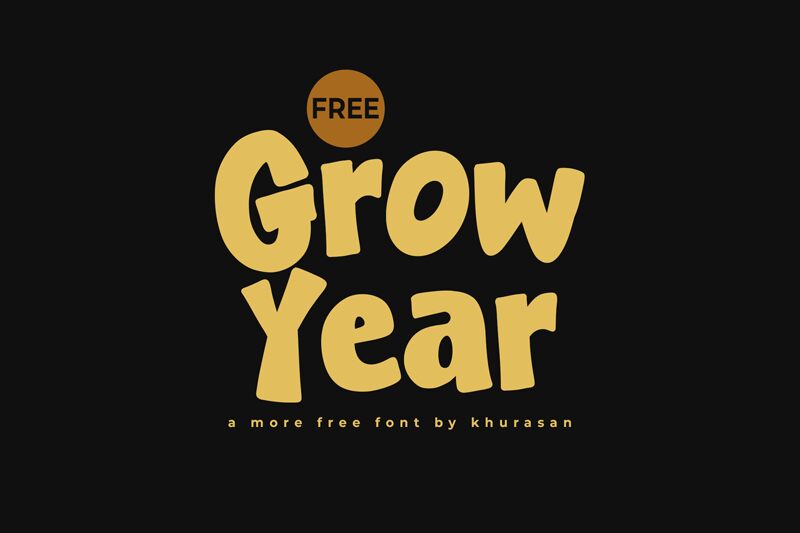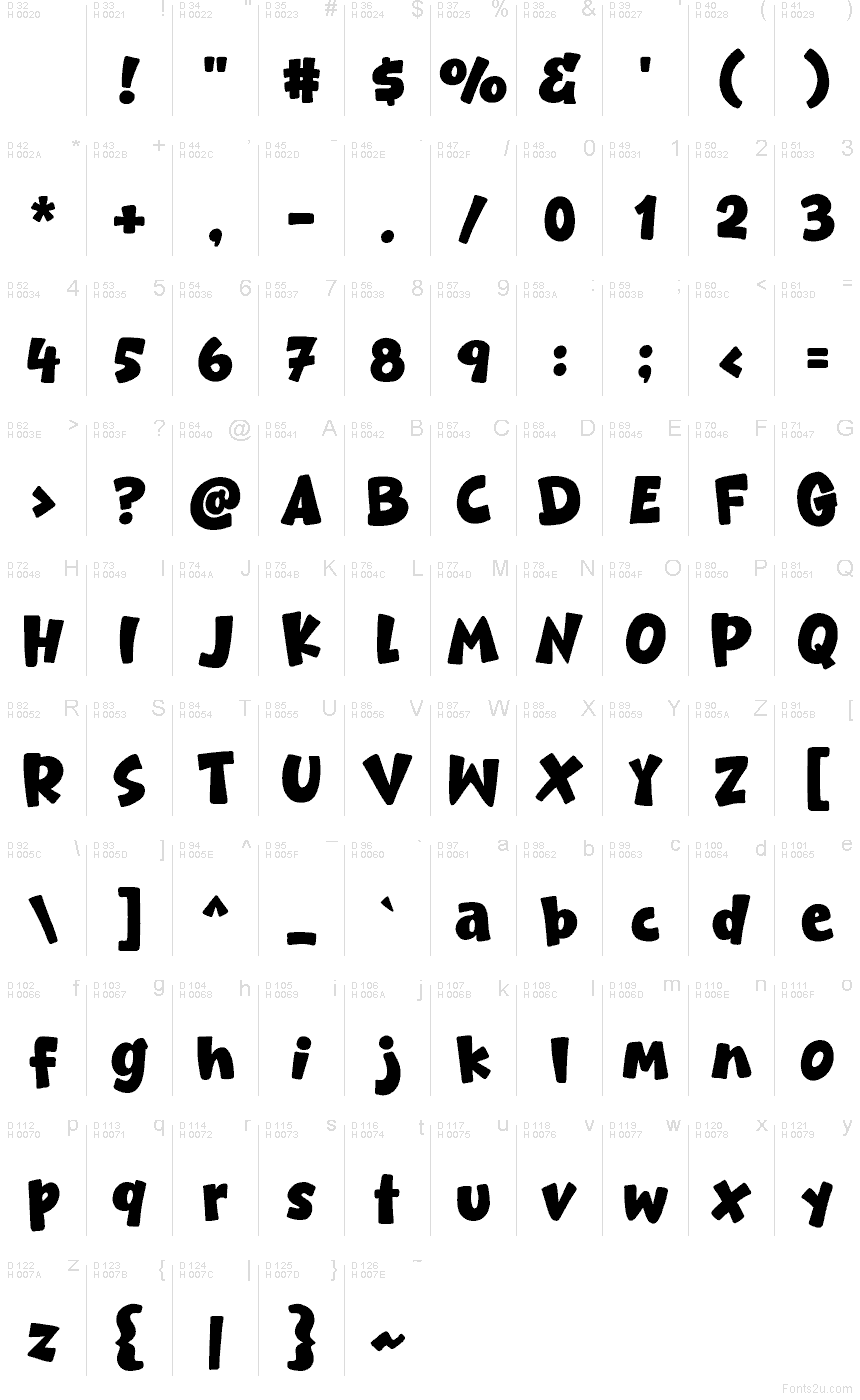
Grow Year
Grow Year font by Khurasan is a free cartoon font typeface with chunky, bouncy shapes that feel cut from soft foam and stamped in fresh ink. Its letters swing with playful, uneven rhythm and friendly heft, giving words a hand-made energy without turning messy. The bold weight keeps everything readable, while the rounded curves add a warm, kid-forward smile.
Using Grow Year, you’ll get punchy results on children’s packaging, toy branding, classroom posters, birthday invites, sticker sheets, YouTube thumbnails, and app splash screens. This free font shines when you keep the tracking a touch open and let it breathe at larger sizes. Pair it with a clean geometric sans for body copy so Grow Year can do the talking up top.